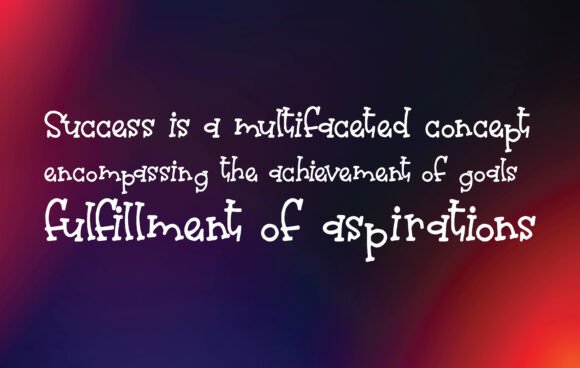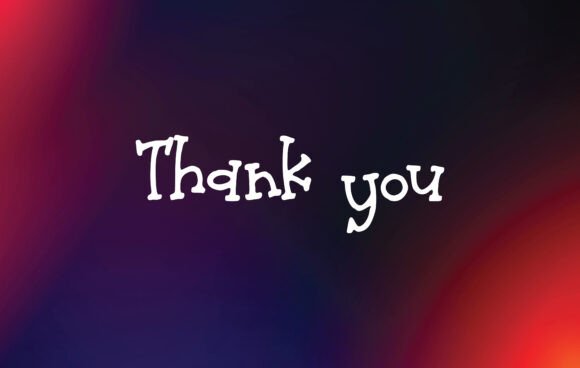
Camilo Font: Elevate Your Designs with a Lovely Handwritten Style
Are you tired of using the same old fonts in your designs? Look no further than Camilo Font, a beautiful handwritten font that can take your creative ideas to new heights. With its unique and elegant style, Camilo Font is the perfect choice for designers and crafters looking to add a personal touch to their work.
The Beauty of Camilo Font
Camilo Font is a lovely and beautiful handwritten font that exudes warmth and sophistication. Its flowing lines and delicate curves make it a joy to use in a variety of design applications, from logos and branding to quotes and social media graphics. Whether you’re looking to create a cohesive brand identity or simply want to add some visual interest to your designs, Camilo Font is an excellent choice.
Why Choose Camilo Font?
So, what sets Camilo Font apart from other fonts on the market? Here are just a few reasons why designers and crafters love this beautiful handwritten font:
- Unique Style: Camilo Font has a distinctive, one-of-a-kind style that’s sure to make your designs stand out from the crowd.
- Elegant and Sophisticated: With its flowing lines and delicate curves, Camilo Font adds a touch of elegance and sophistication to any design.
- Versatile: Whether you’re creating a logo, branding materials, or social media graphics, Camilo Font is a versatile choice that can be used in a variety of applications.
- Easy to Read: Despite its elegant style, Camilo Font is easy to read, making it a great choice for body text and quotes.
Using Camilo Font in Your Designs
So, how can you use Camilo Font in your designs? Here are a few ideas to get you started:
- Logos and Branding: Use Camilo Font to create a unique and memorable logo or brand identity that sets your business apart.
- Quotes and Social Media Graphics: Add a touch of elegance and sophistication to your quotes and social media graphics with Camilo Font.
- Invitations and Stationery: Use Camilo Font to create beautiful invitations, stationery, and other paper goods that are sure to impress.
- Web Design: Add a personal touch to your website with Camilo Font, perfect for headings, titles, and other design elements.
Tips for Getting the Most Out of Camilo Font
To get the most out of Camilo Font, here are a few tips to keep in mind:
- Pair with Other Fonts: Camilo Font pairs well with a variety of other fonts, so don’t be afraid to get creative and try out different combinations.
- Use it Sparingly: While Camilo Font is a beautiful font, it can be overwhelming if used too much. Use it sparingly to add visual interest to your designs.
In conclusion, Camilo Font is a lovely and beautiful handwritten font that has the potential to take your creative ideas to the highest level. With its unique style, elegant and sophisticated design, and versatility, it’s the perfect choice for designers and crafters looking to add a personal touch to their work. Whether you’re creating logos and branding materials, quotes and social media graphics, or simply want to add some visual interest to your designs, Camilo Font is an excellent choice.